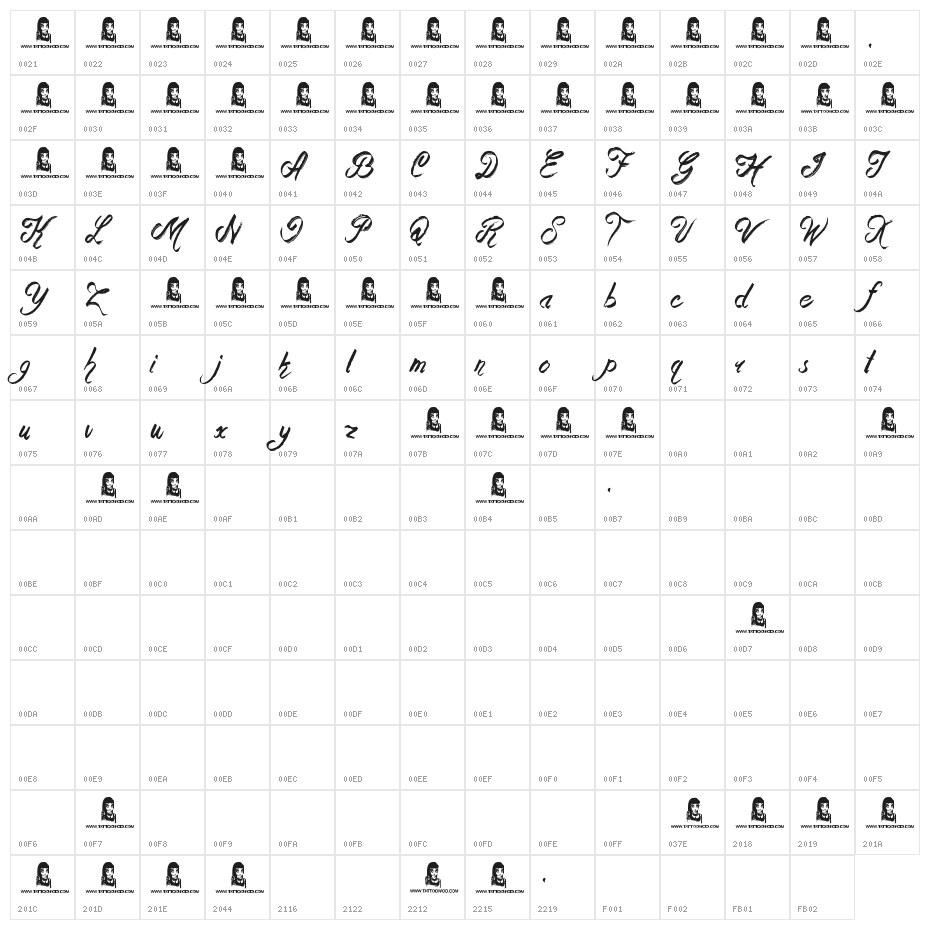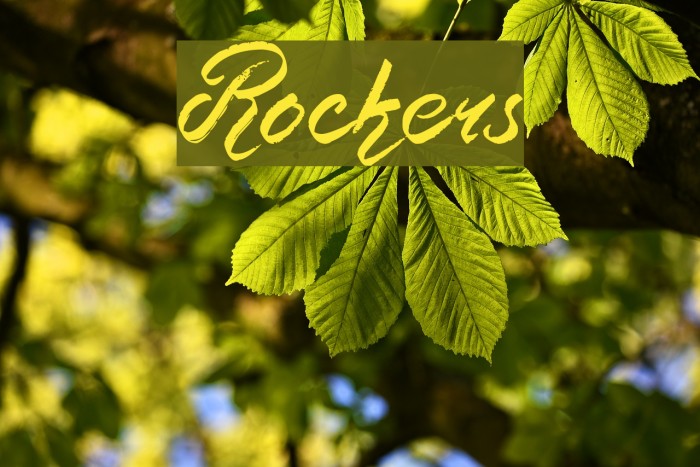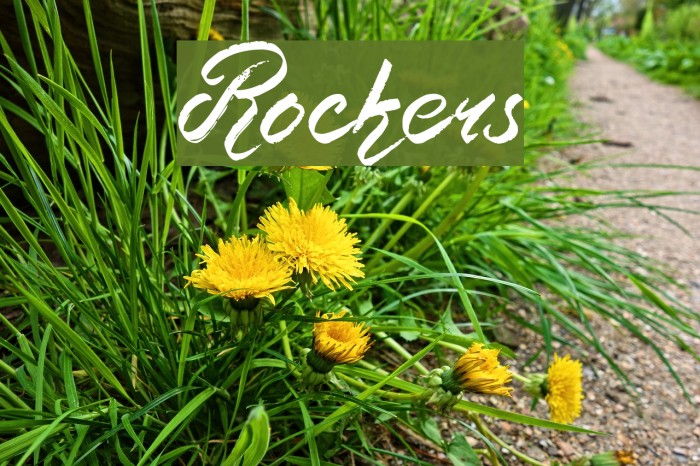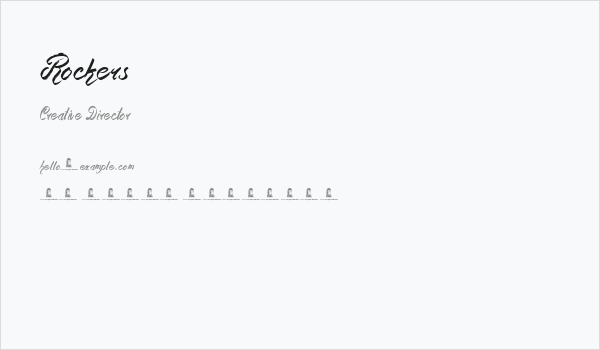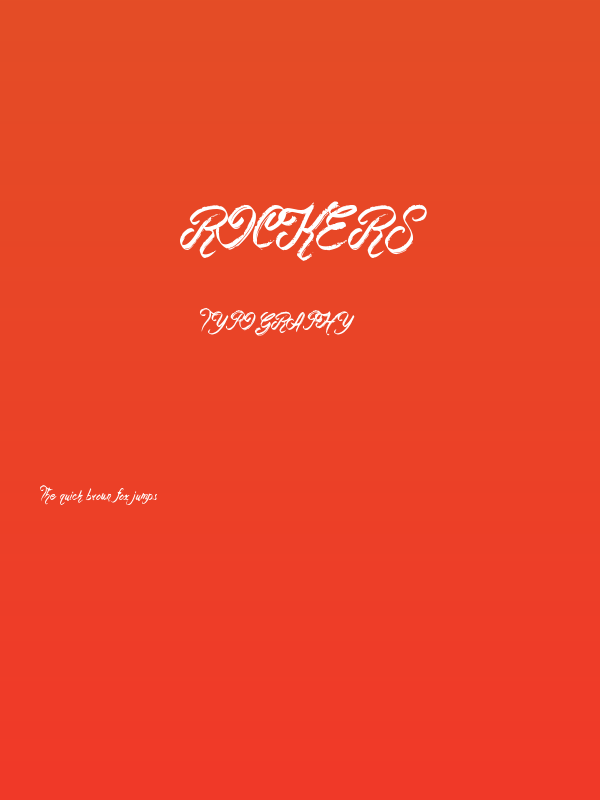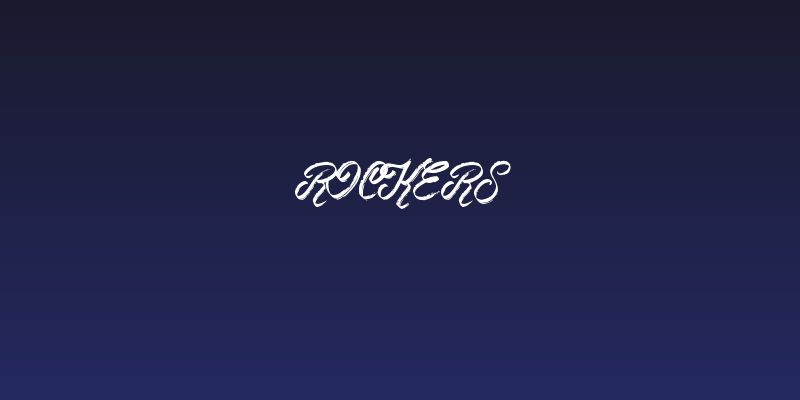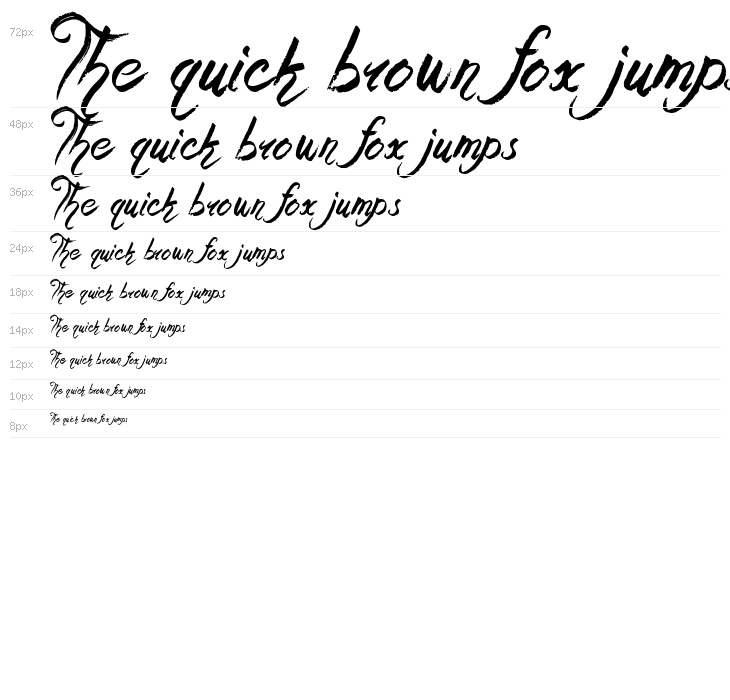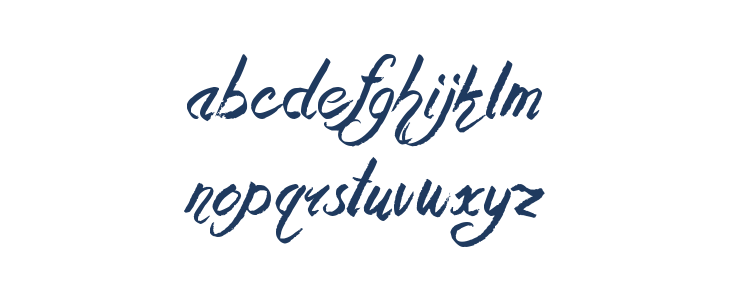
Rockers Font
Rockers Description
This font exhibits a bold, expressive style with a handwritten script appearance. The letters are characterized by their flowing, cursive forms and dynamic strokes, which give a sense of movement and energy. The uppercase letters are particularly ornate, featuring exaggerated loops and swirls, while the lowercase letters maintain a more consistent flow. The font has a textured, brush-like quality, adding to its artistic and edgy feel. It is well-suited for designs that require a dramatic and impactful visual presence, such as posters, album covers, or branding for creative industries.
| Use Case | Logos, Headlines, Artistic Designs |
| Proposed Projects | Ideal for music album covers, tattoo designs, edgy branding, and artistic posters. |